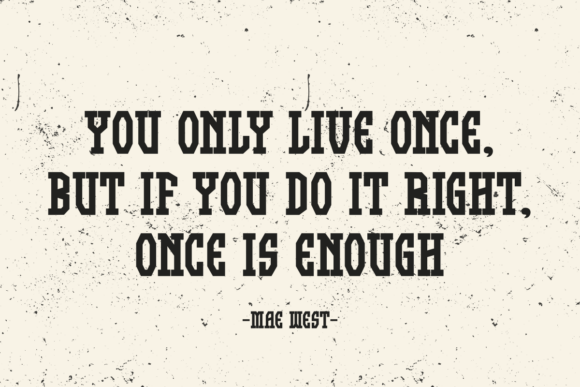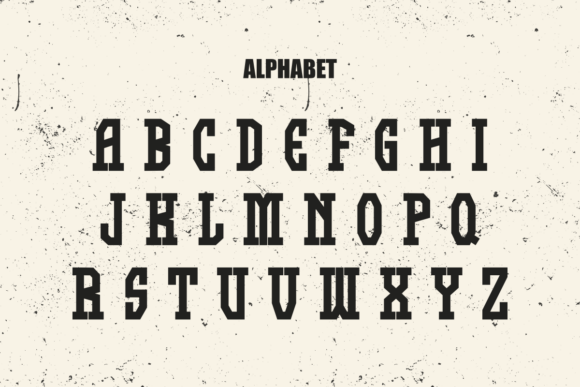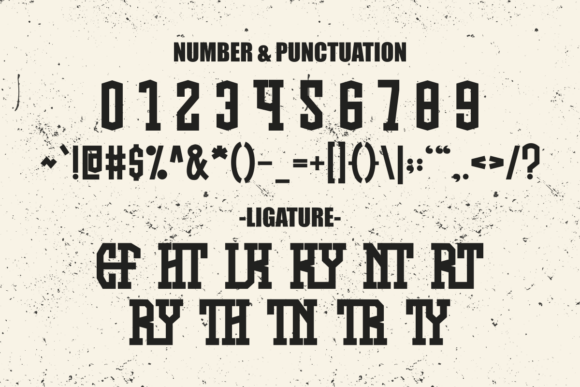
Introduction to Retro Short Font
Retro Short is a unique classic and retro vintage slab serif font that perfect for adding a nostalgic touch to your design.
Ideal for quotes, posters and apparel mockups And also suitable for various topics such as Christmas, trump, thanksgiving, grinch, funky, laser, march and patriotic great dane.